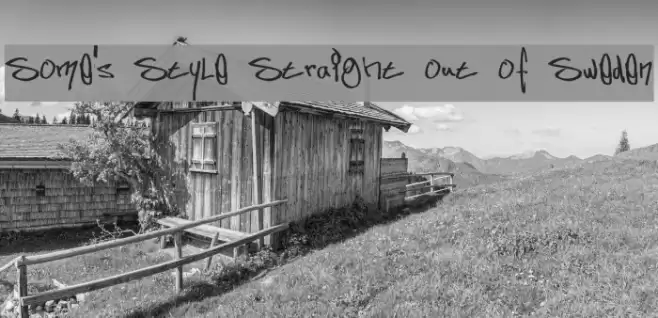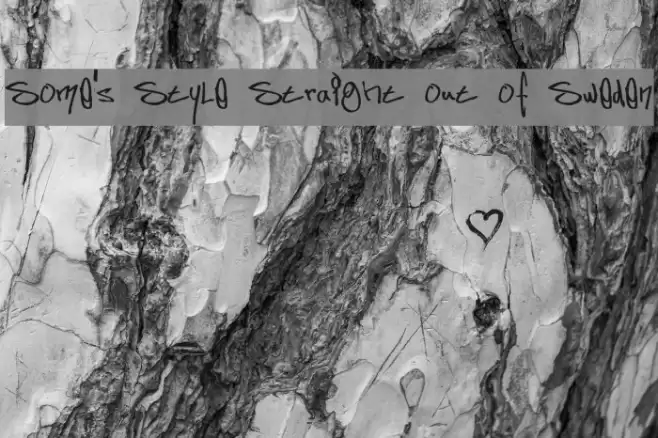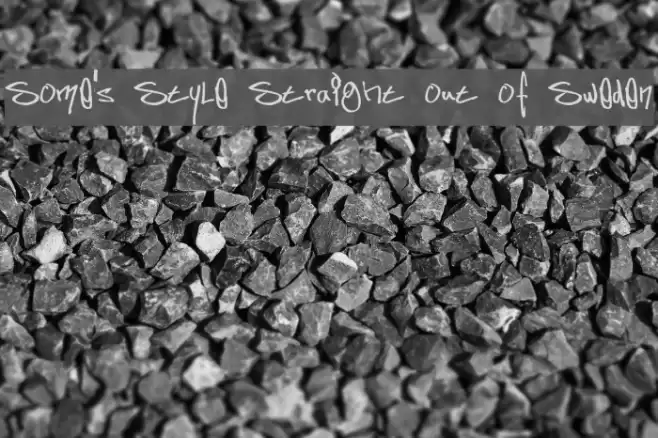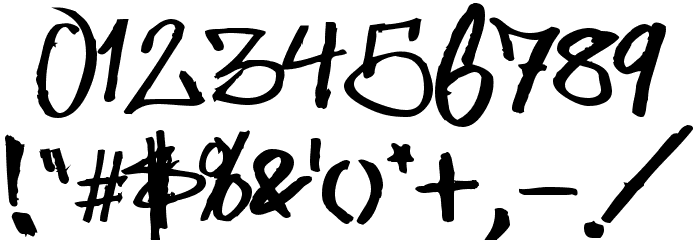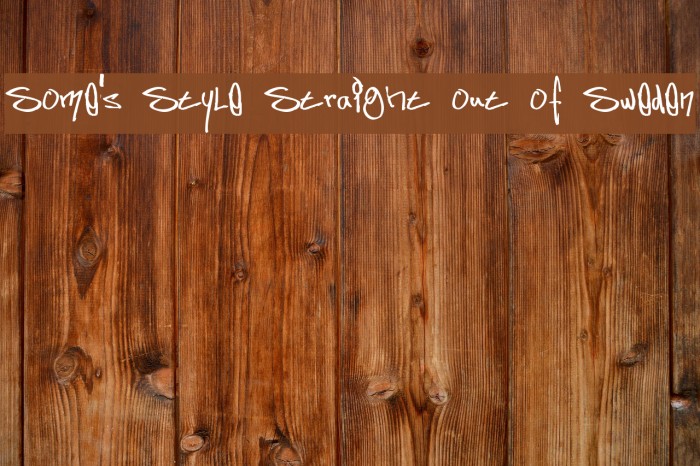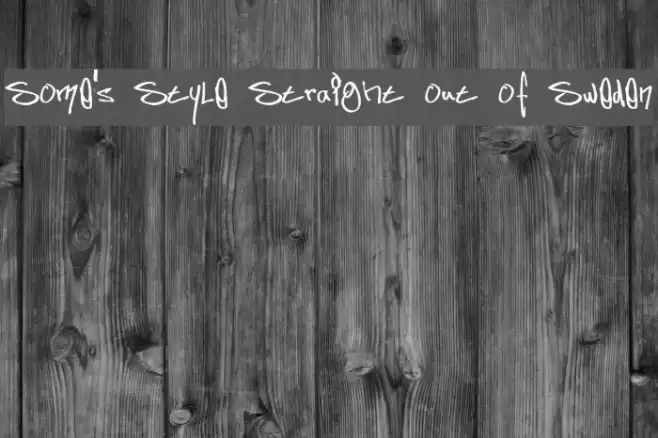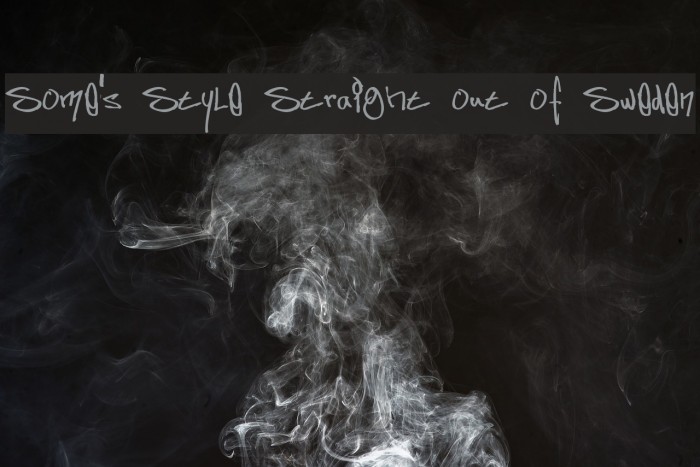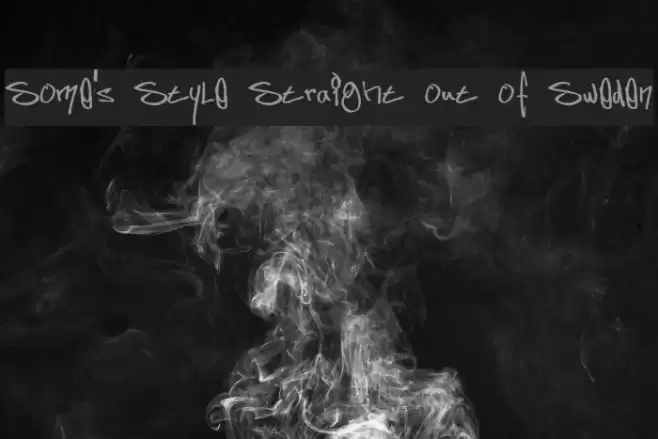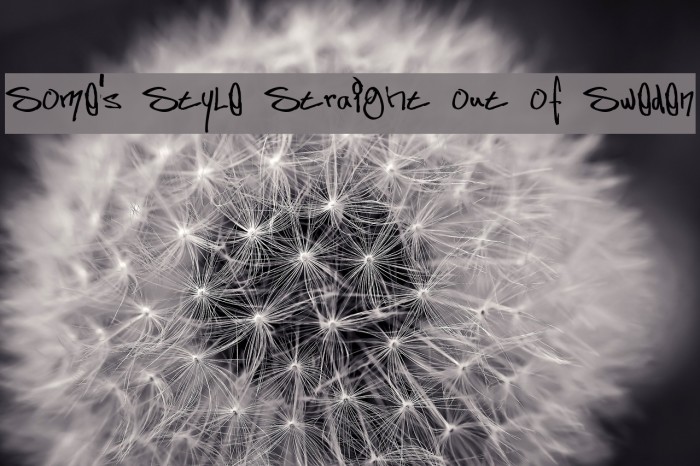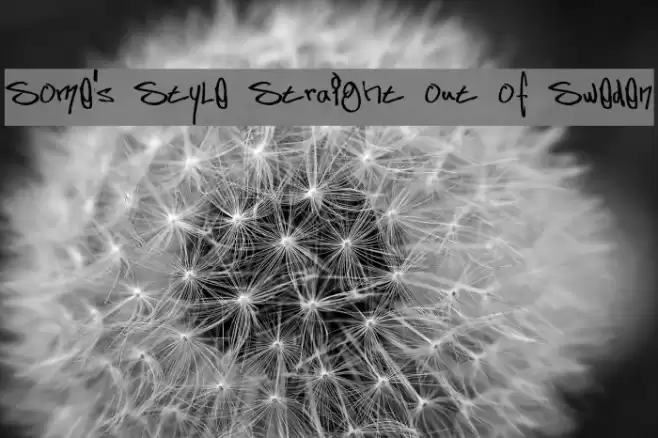
Some's Style Straight out of Sweden Font
Some's Style Straight out of Sweden Description
This font features a bold, expressive style with a hand-drawn appearance. The characters are dynamic and energetic, with a slightly chaotic yet artistic flair. The uppercase letters are particularly striking, with sharp angles and unique forms that give them a distinctive personality. The lowercase letters maintain this expressive quality, offering a cohesive look across the alphabet. Numbers and special characters follow the same design principles, ensuring consistency throughout. The overall impression is one of creativity and individuality, making it suitable for projects that require a strong visual impact.
A bold, hand-drawn font with an expressive and artistic style from Quirky fonts.
- Proposed Projects: Ideal for creative projects such as posters, album covers, graffiti art, and branding that seeks a bold, artistic touch.